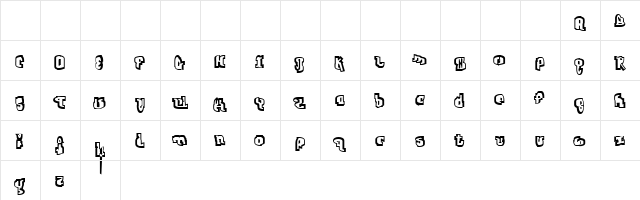
Jab Outline
Design Context for Jab Typeface
Jab brings ornamental detail and strong personality to headlines and identities, where visual impact matters more than quiet functionality.
Font Pairing: Pair with a clean neutral sans-serif for body copy to let Jab's character lead without overwhelming the composition.
Pro Tip: Use Jab exclusively at display sizes — it was designed to be seen, not read at length. Let a neutral companion handle body copy.